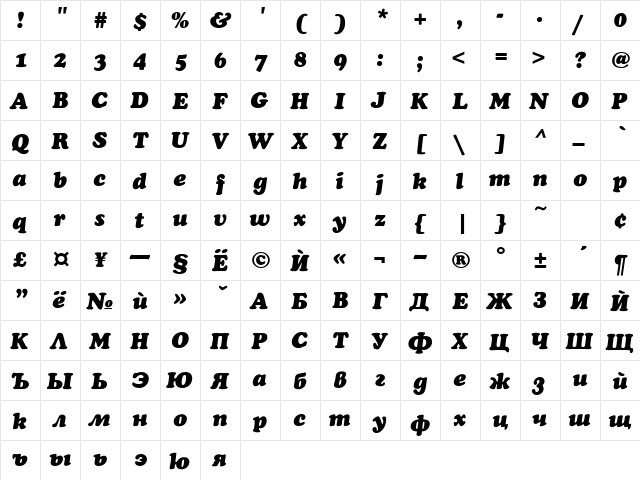
Kom Italic
Design Context for Kom Typeface
Kom is a composed and adaptable typeface that performs quietly and consistently across a wide range of design contexts. Its italic angle brings a sense of urgency and motion to the letterforms.
Pro Tip: Try Kom for annotation and caption copy alongside an upright companion — the contrast in angle creates a dynamic but ordered typographic system.